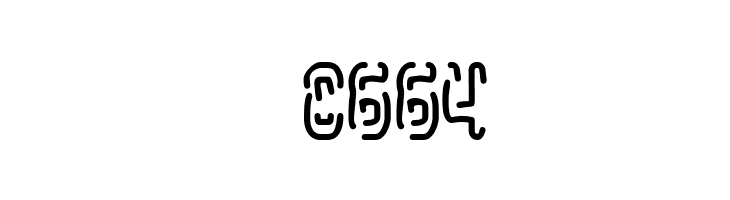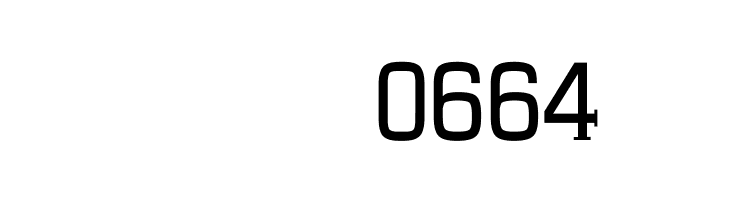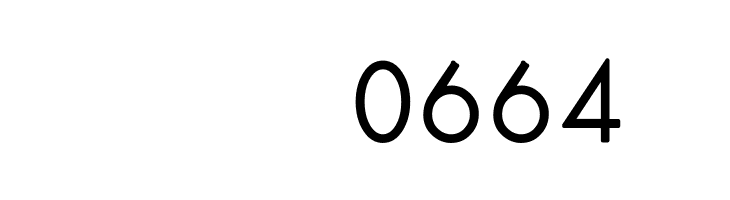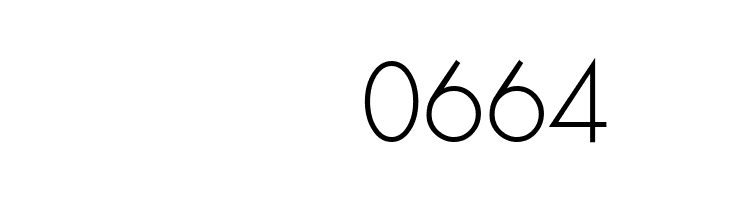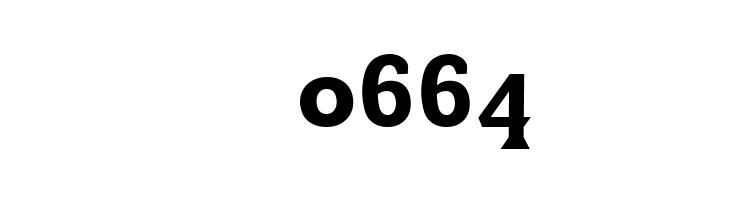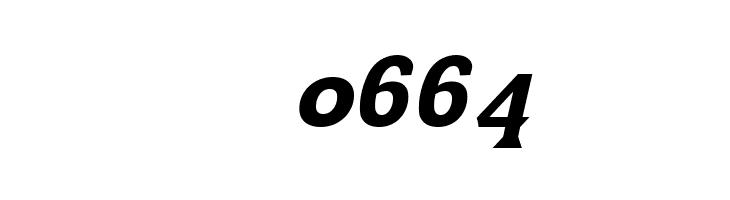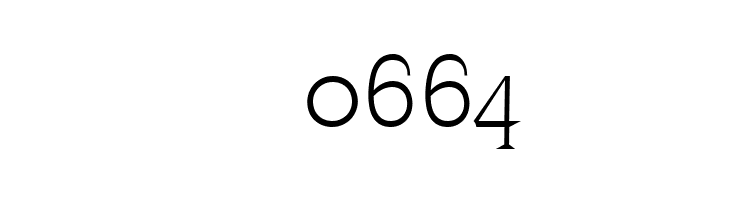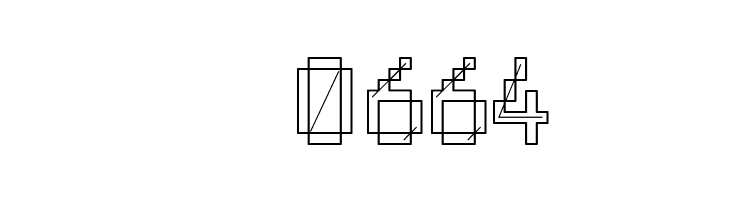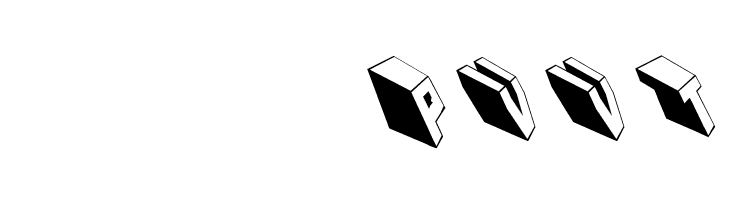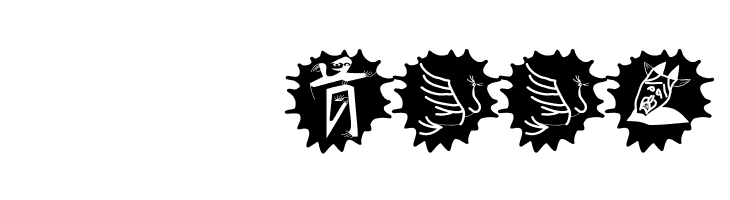
• MKGrotesque
A modern, clean sans-serif font with uniform stroke width.
• MKHeads
A playful and whimsical collection of cartoon-style character illustrations.
• MKLatin-Bold
A bold serif font with a classic yet modern style, offering strong readability.
• MKLatin-BoldOblique
A bold, oblique font with strong, dynamic strokes and a modern flair.
• MKLatinLight
A classic serif font with elegant strokes and a refined, timeless appearance.
• MkLatinLight-Oblique
A sleek, oblique font with elegant, light-weight characters.
• MKlimesCondensed
A classic, condensed serif font with elegant, elongated characters.
• MKlothes
A whimsical decorative font with playful, hand-drawn illustrations.
• MKMouseworx
A whimsical, cartoon-like decorative font with abstract characters.
• MKMouseworxTwo
Abstract illustrations in circular and square frames, not a traditional font.
• MKOCR
A playful, handwritten-style font with bold, rounded characters.
• MKoepfeBold
A decorative font featuring stylized human-like faces for each character.
• MKomicsVers2
A whimsical and artistic font featuring unique, illustrated characters.
• MKPixelProject
A pixelated, geometric font with a retro digital aesthetic.
• MKreatures
A whimsical and decorative set of imaginative character illustrations.
• MKRunes
A bold, angular font inspired by ancient runic alphabets, perfect for mysterious or fantasy-themed designs.
• MKRunes-Light
A decorative, angular font inspired by ancient runes.
• MKSansserifLightTallX
A modern, tall, and narrow sans-serif font with a clean and minimalistic design.
• MKSansserifMediumTallX
A modern, medium-weight sans-serif font with a tall x-height and clean lines.
• MKSansTallX
A modern, tall sans-serif font with clean, narrow letterforms.
• MKSchmalhands
A tall, narrow, and whimsical hand-drawn font with a playful style.